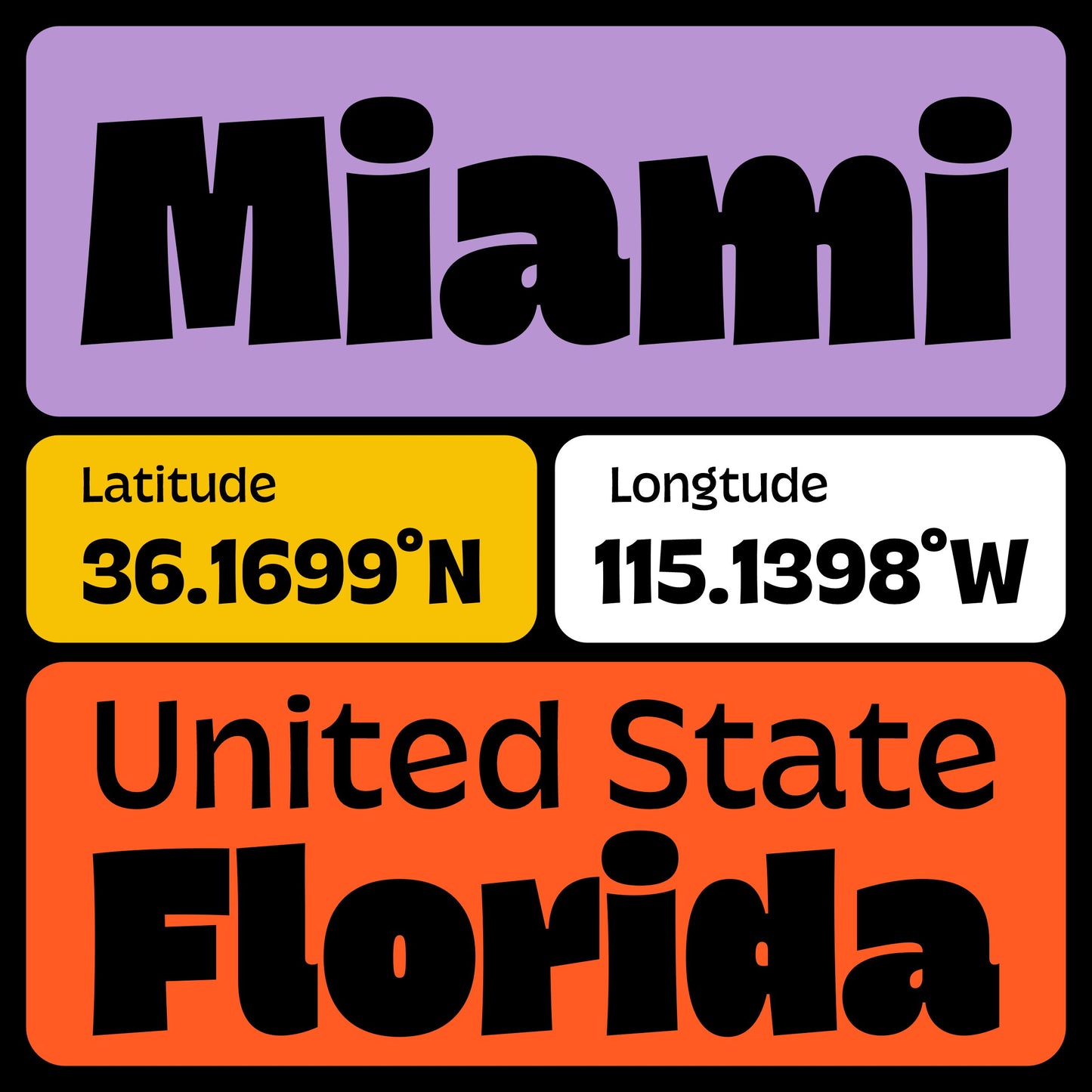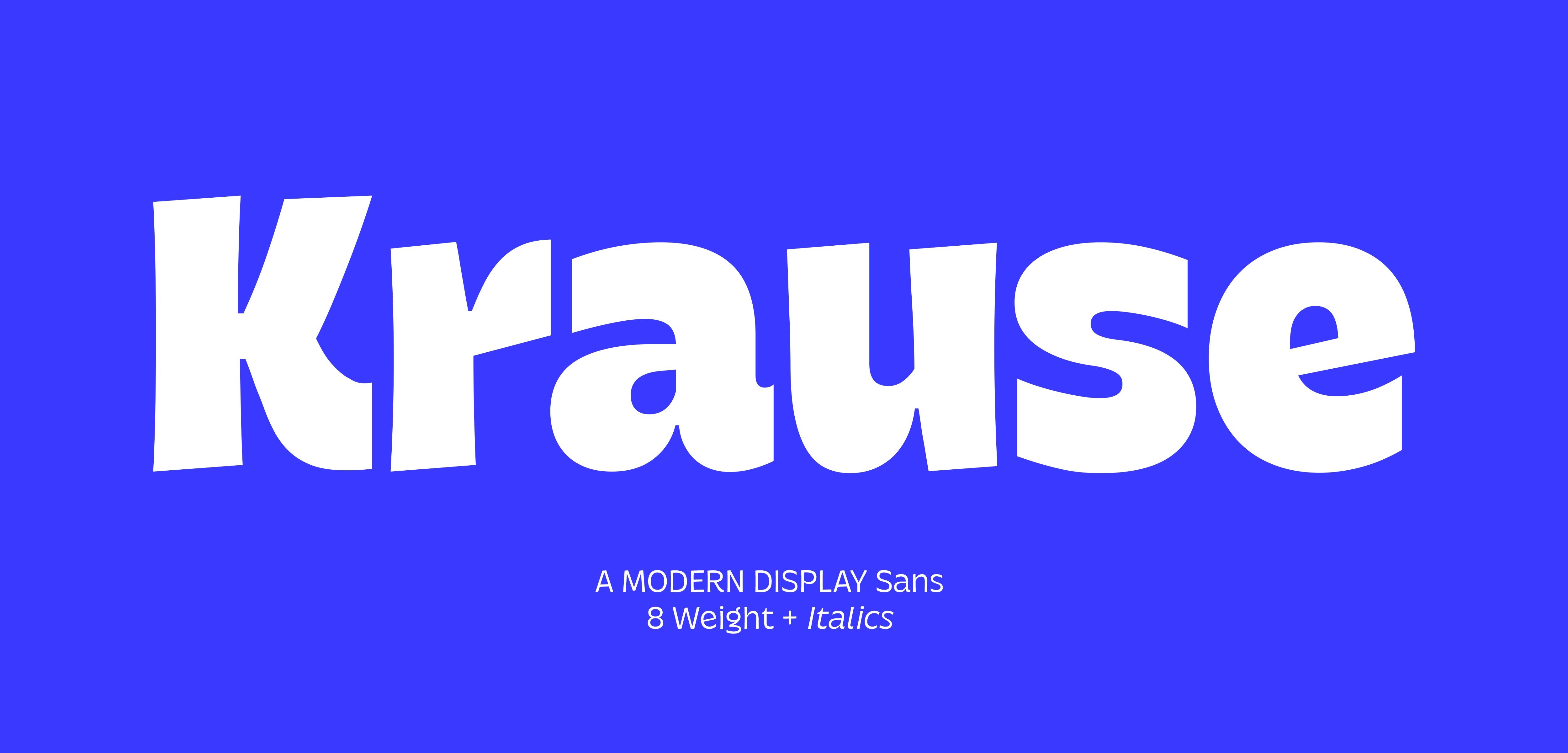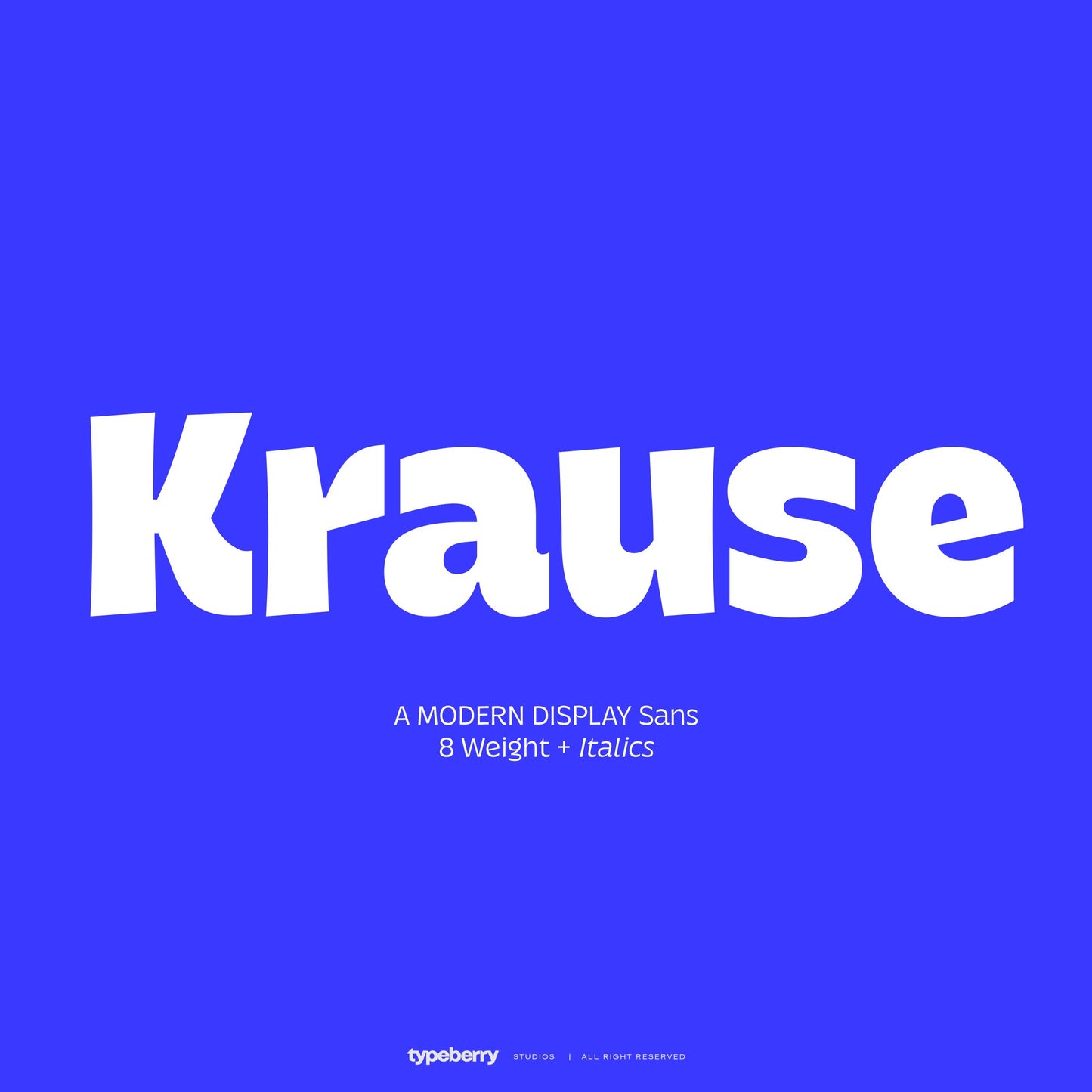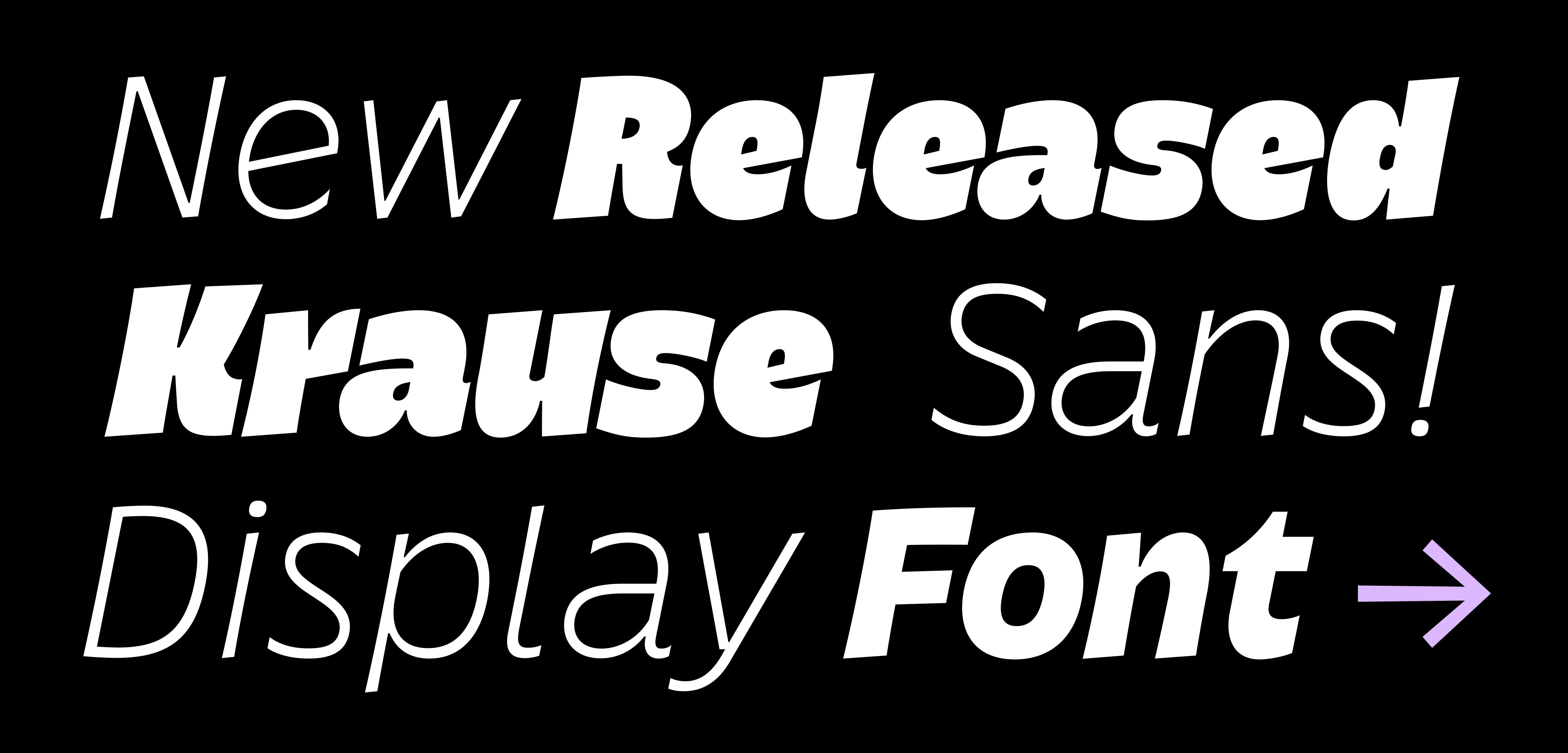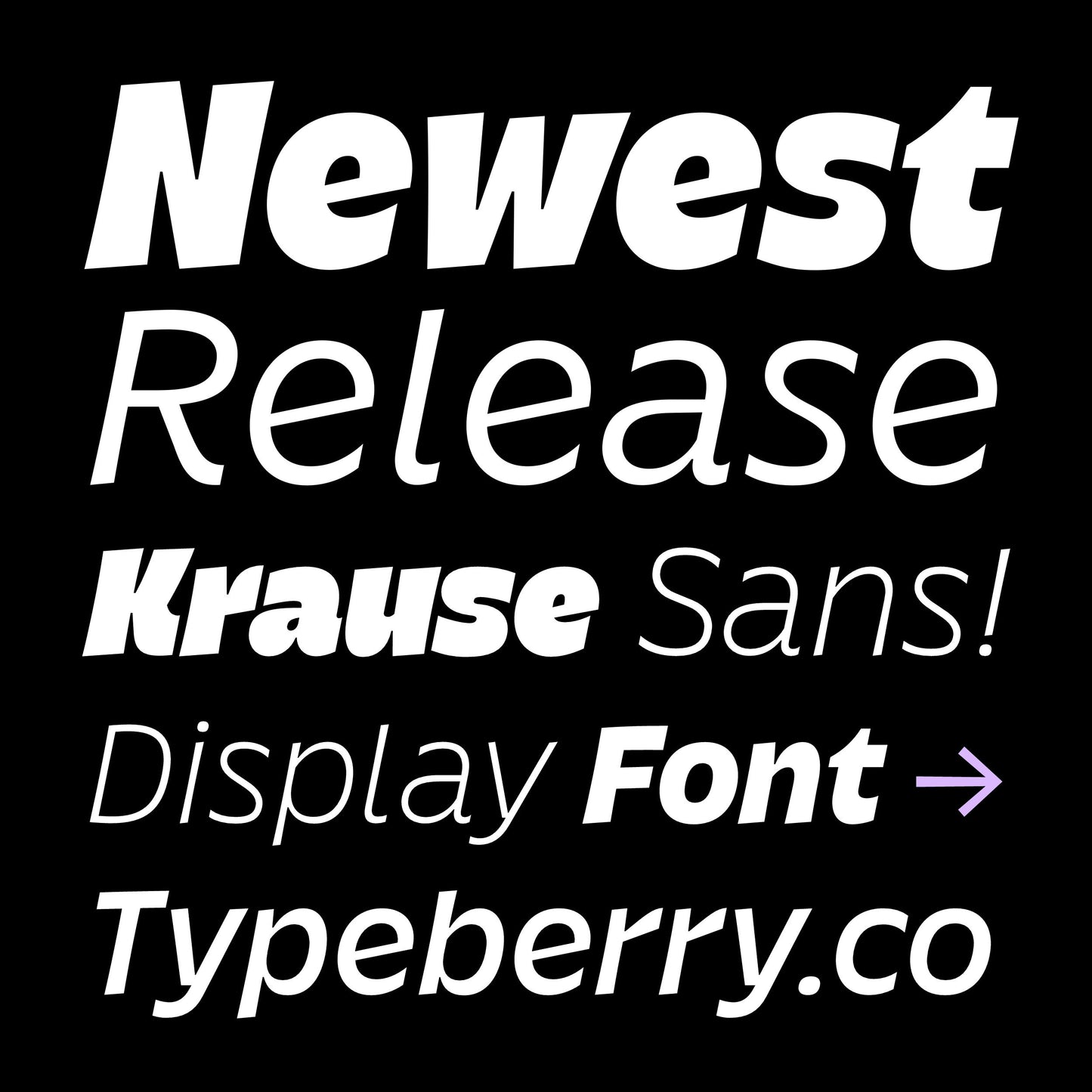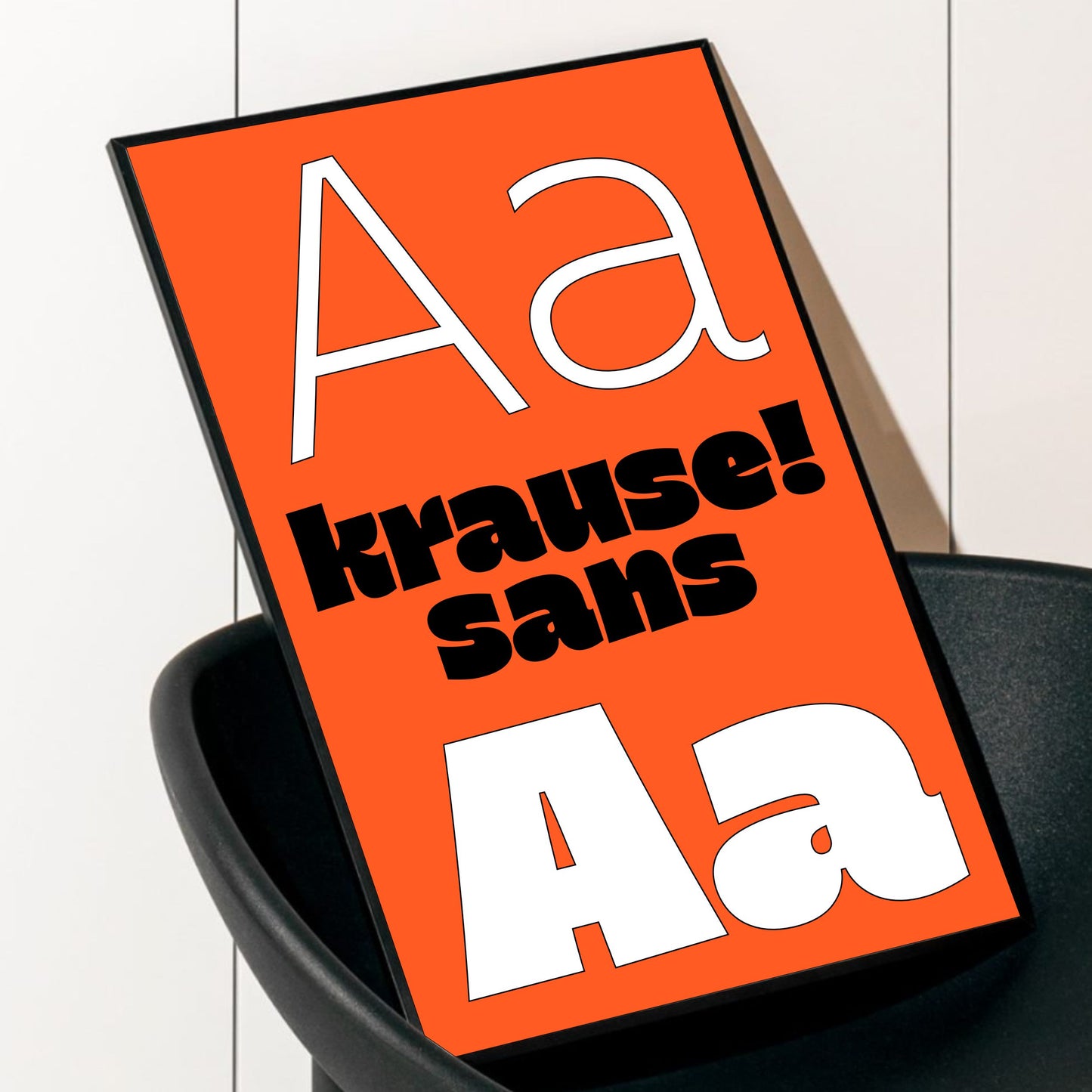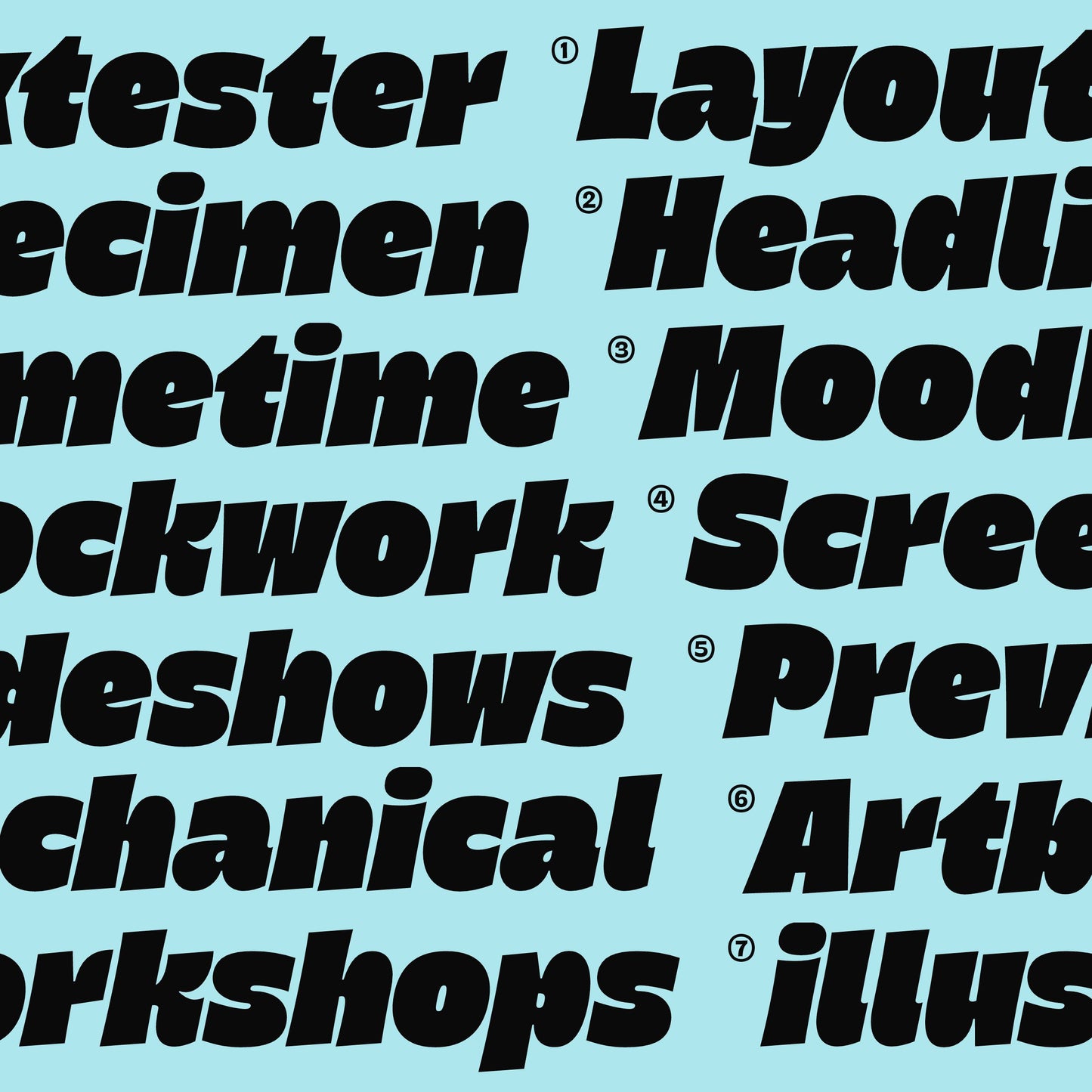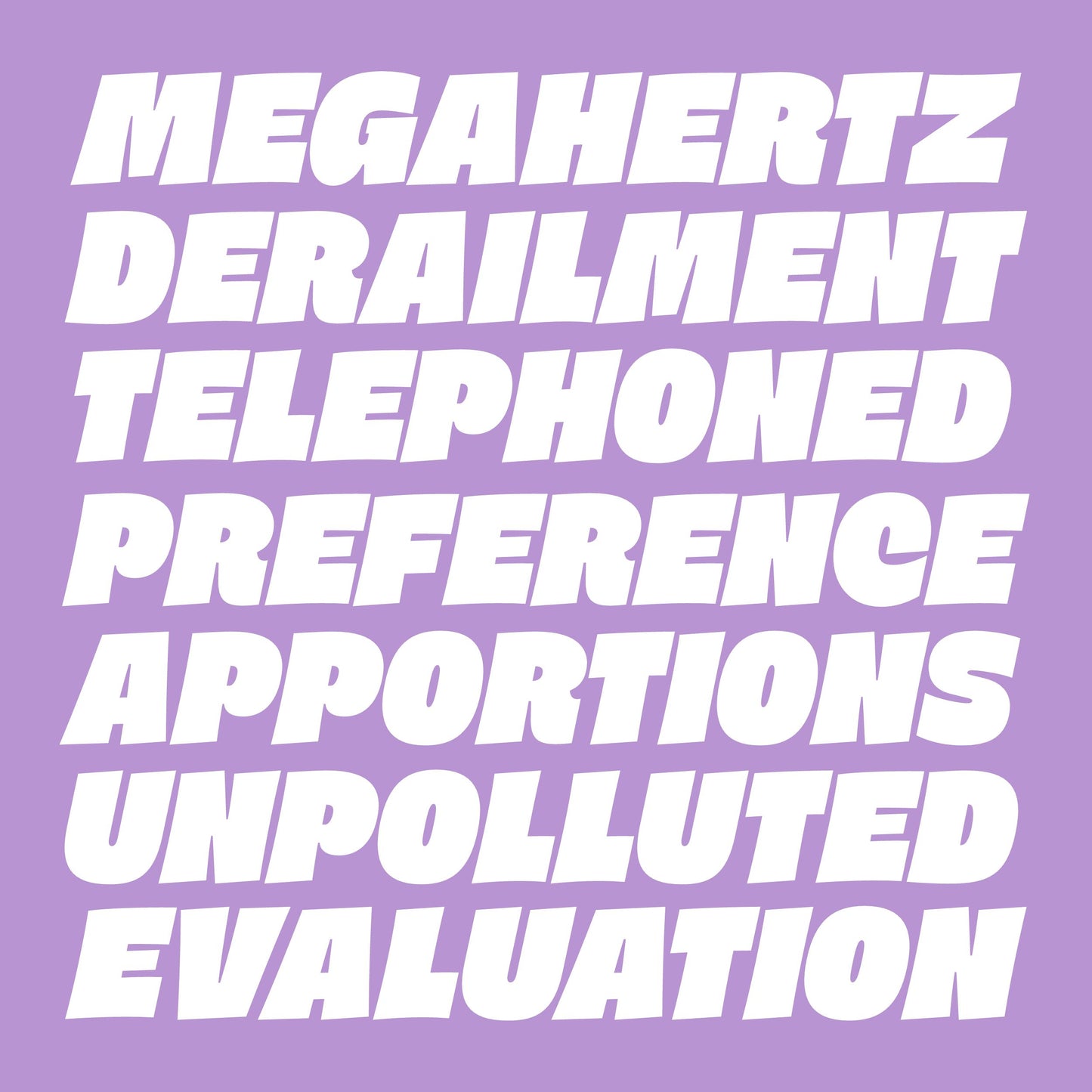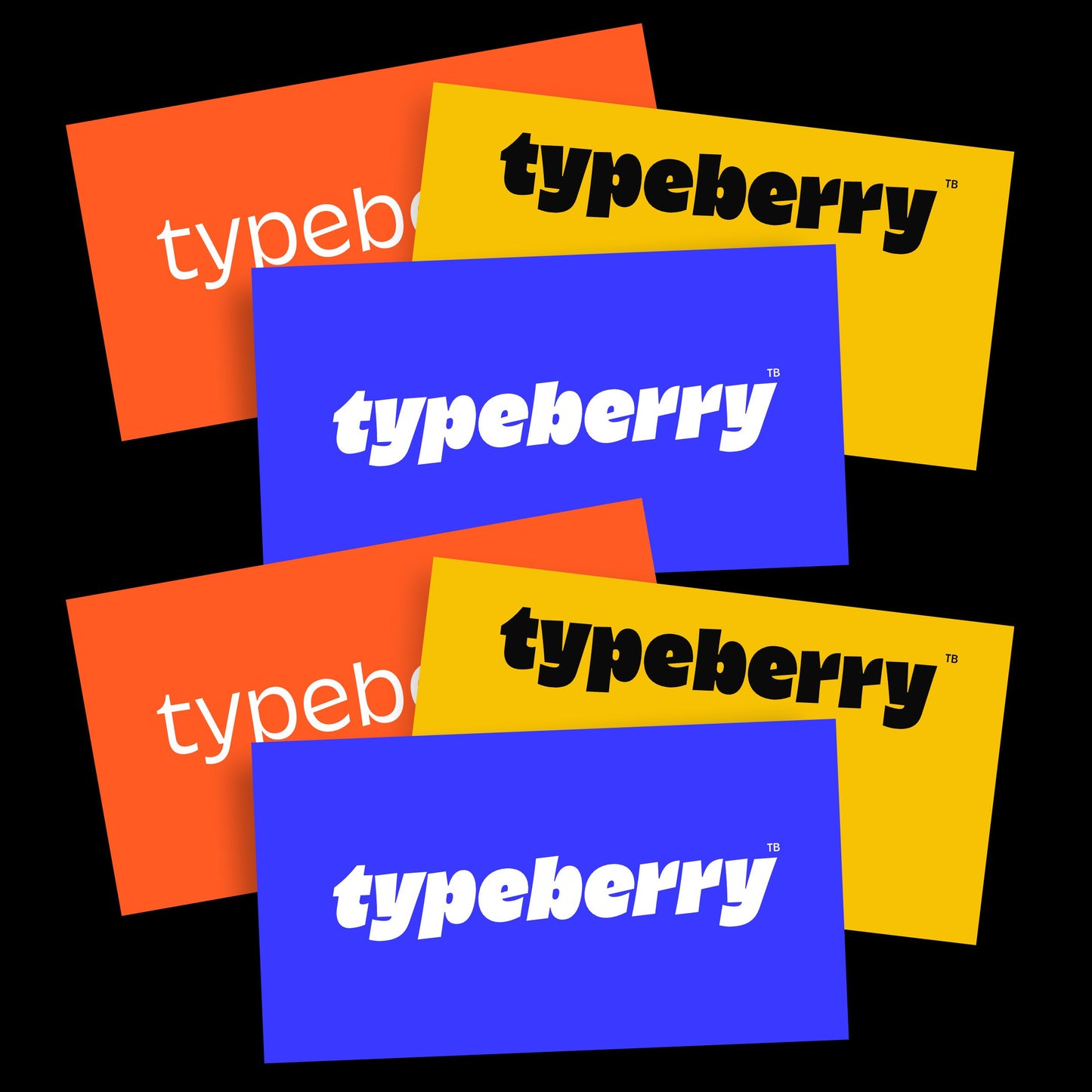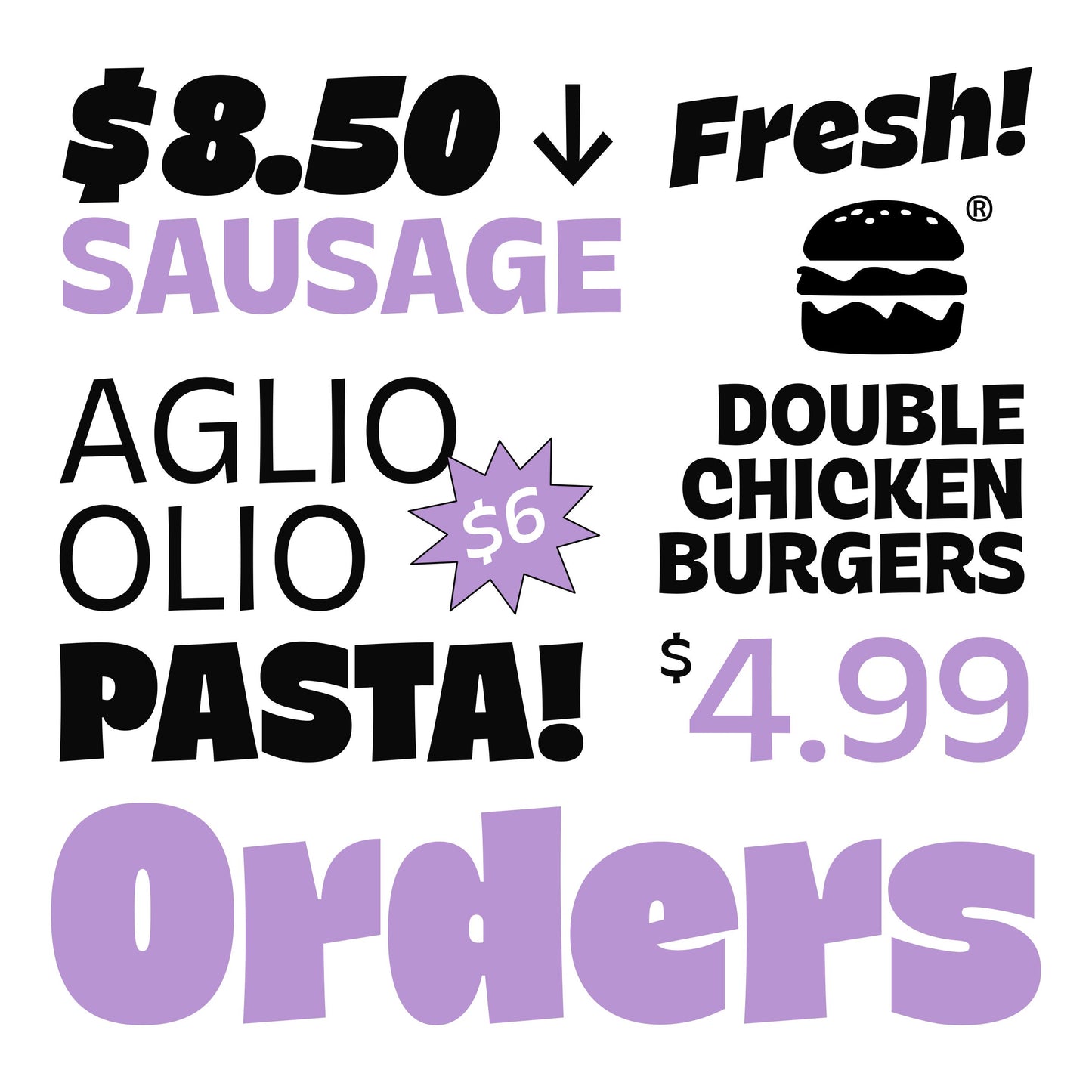
Krause Sans
Krause Sans is a modern display sans serif with a bold, playful, and expressive character. Designed with slightly irregular curves and dynamic proportions, Krause Sans delivers a strong visual voice while staying friendly and approachable.
This typeface comes in a full range of weights from Light to Black, complete with matching Italic styles, giving designers flexibility for both expressive headlines and dynamic layouts
— TOTAL GLYPHS: 597
— LATIN EXTENDED & CYRILLIC SUPPORT
— SYMBOLS & PUNCTUATION
— LIGATURES & STYLISTIC ALTERNATESS
— ARROWS & DINGBATS / ICON